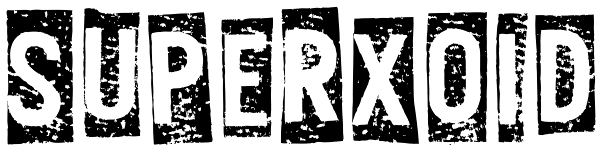
Superxoid
Superxoid is super-distorted, super-damaged and super-noisy...summa summarum, Superxoid is super-grungy! You will need to use OpenType supporting applications to use the autoligatures.
Superxoid Font